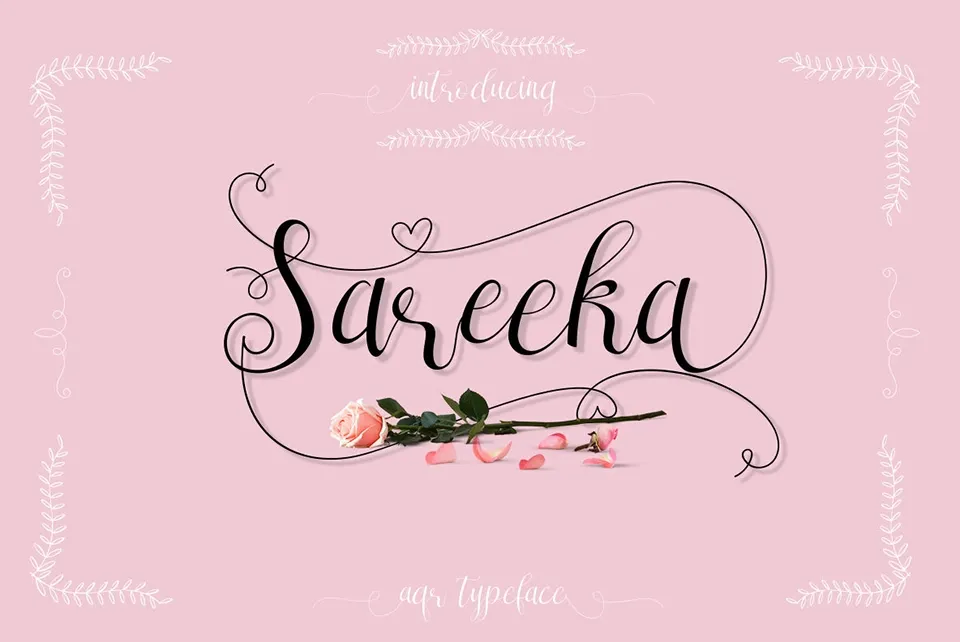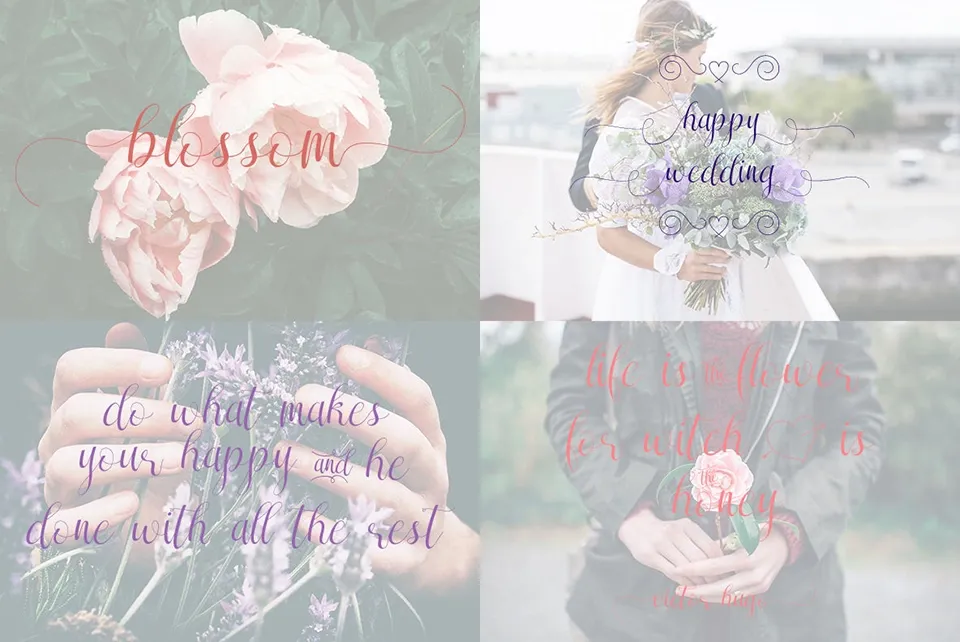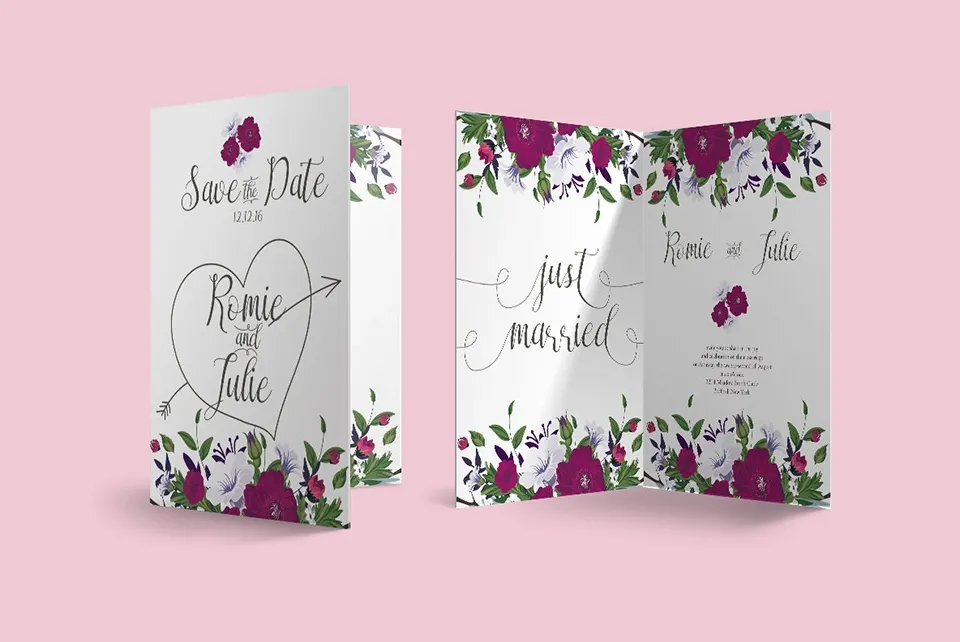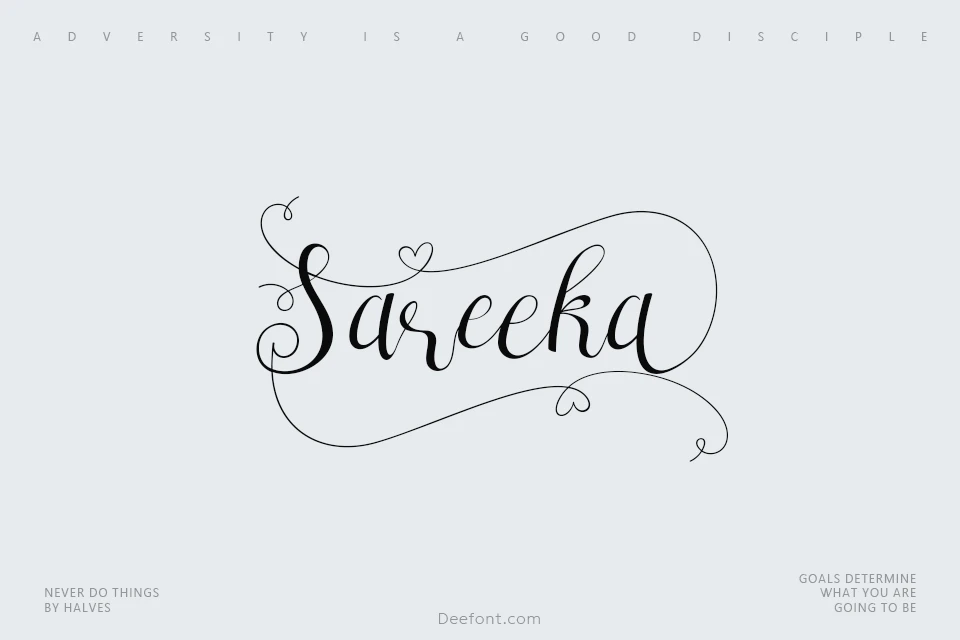
Sareeka Font
Sareeka is a modern calligraphy typeface with more variation stylistics sets and many features. Sareeka very suitable for feminime design, clothing, wedding event, wedding invitation and many more to design what you want.